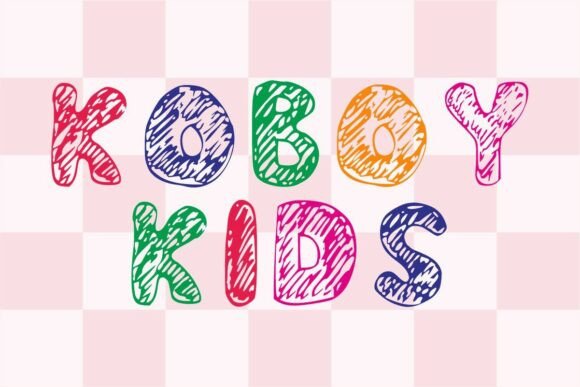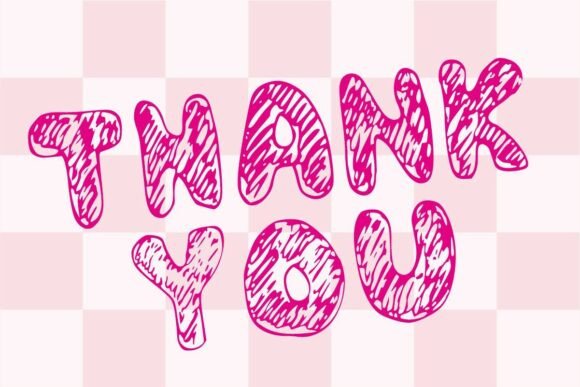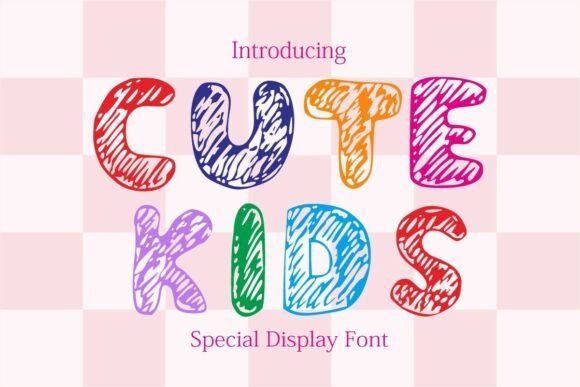
Introduction to Cutekids Regular Font
The Cute Kids font is a joyful and colorful display typeface designed to capture the playful spirit of childhood.
Each letter is hand-drawn with a bold, rounded shape and filled with energetic scribble-style textures that mimic crayon or marker strokes, bringing a spontaneous, creative energy to the type Every character features a unique combination of vibrant colorsβ€”red, purple, orange, green, blue, and pinkβ€”adding to the fun, multicolored aesthetic.